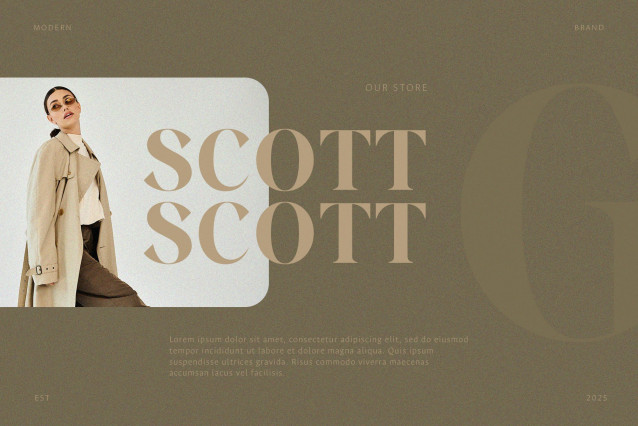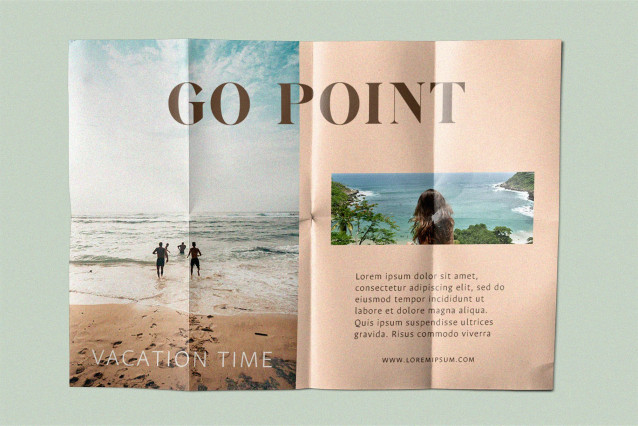
Ceflinty Font
Ceflinty Font is a modern and classy typeface, best used as a display for headings, logos, branding, magazines, product packaging and invitations. Ceflinty come with clean lines and smooth curves give any project an extra touch of class.